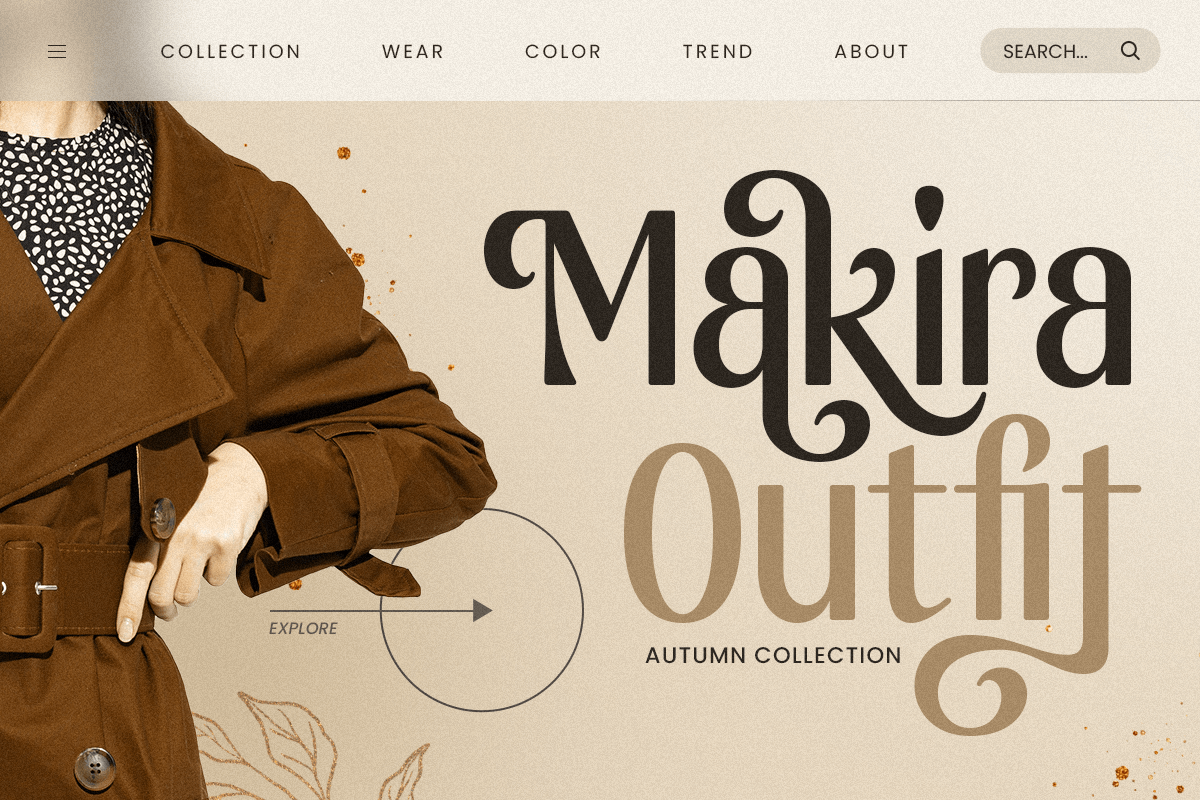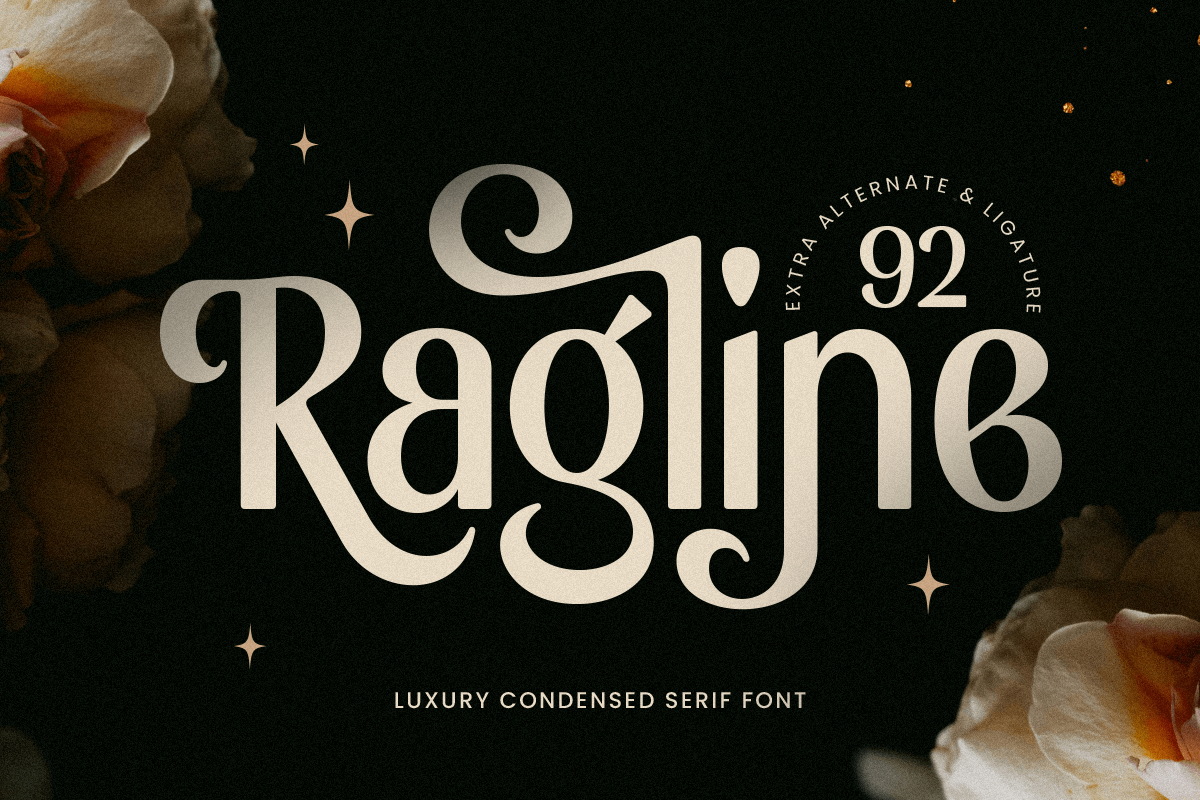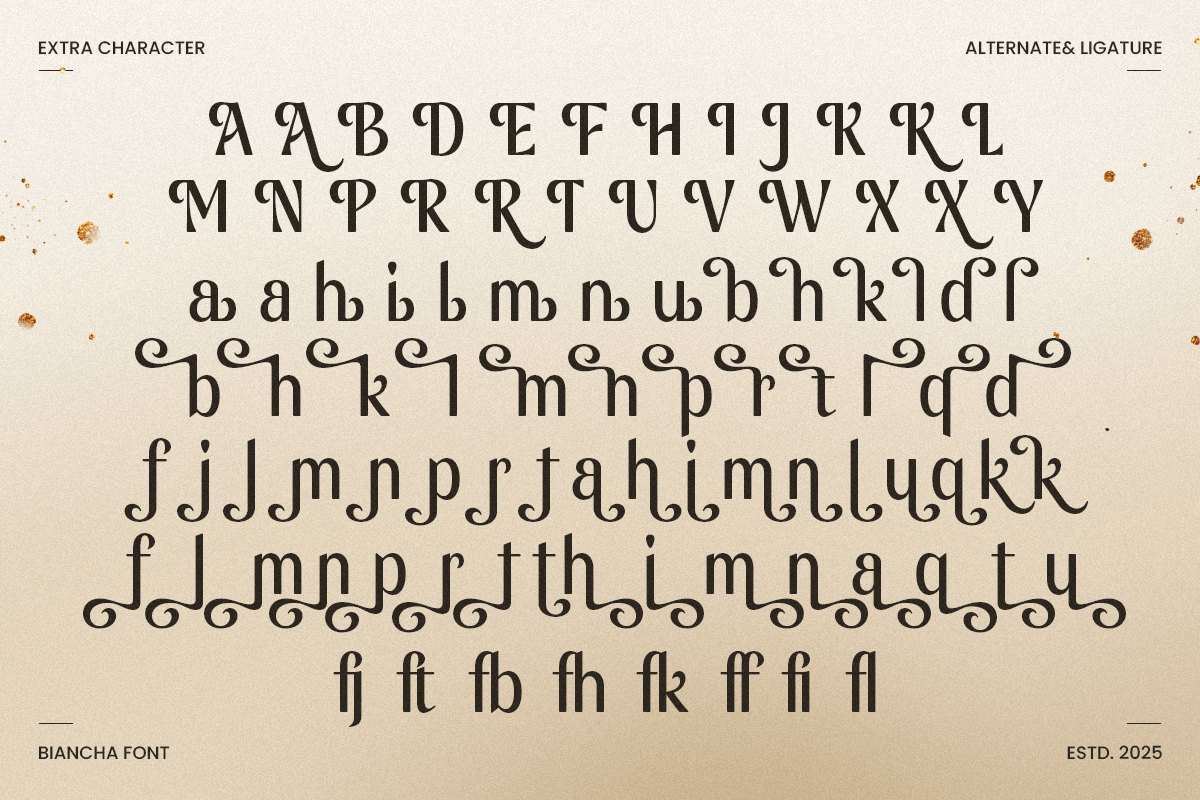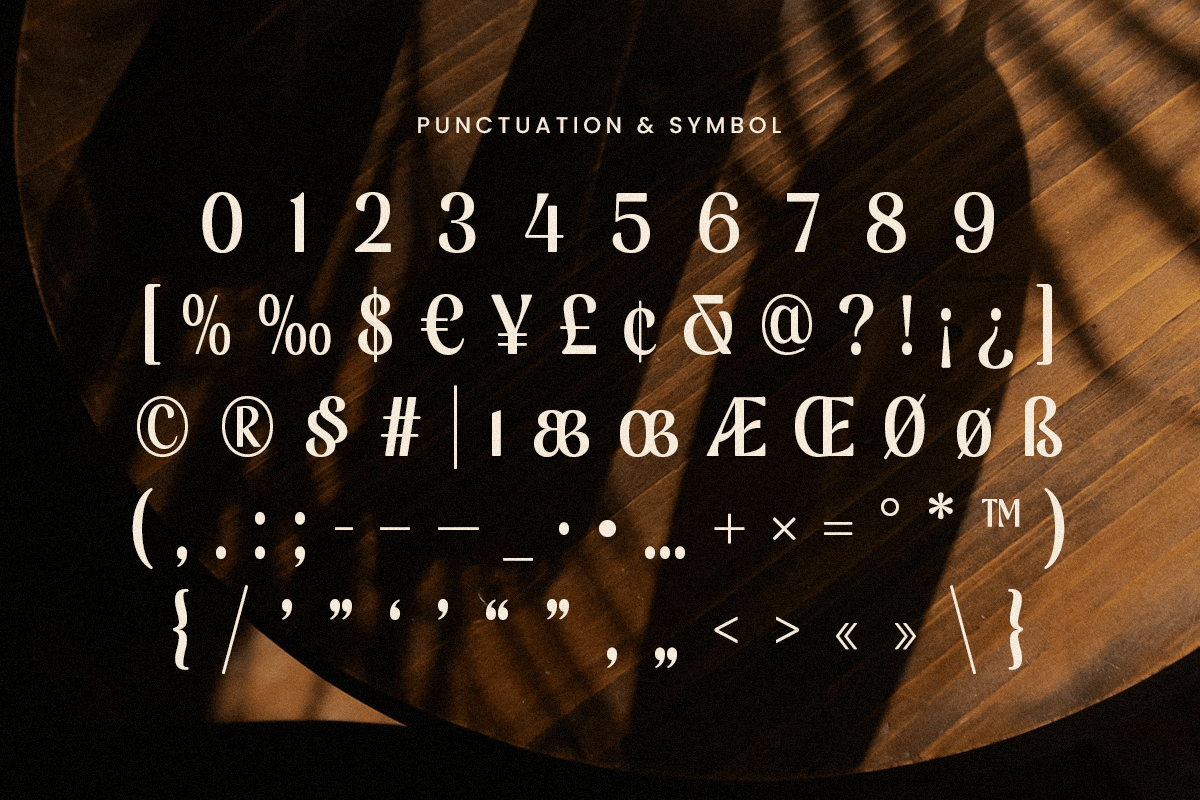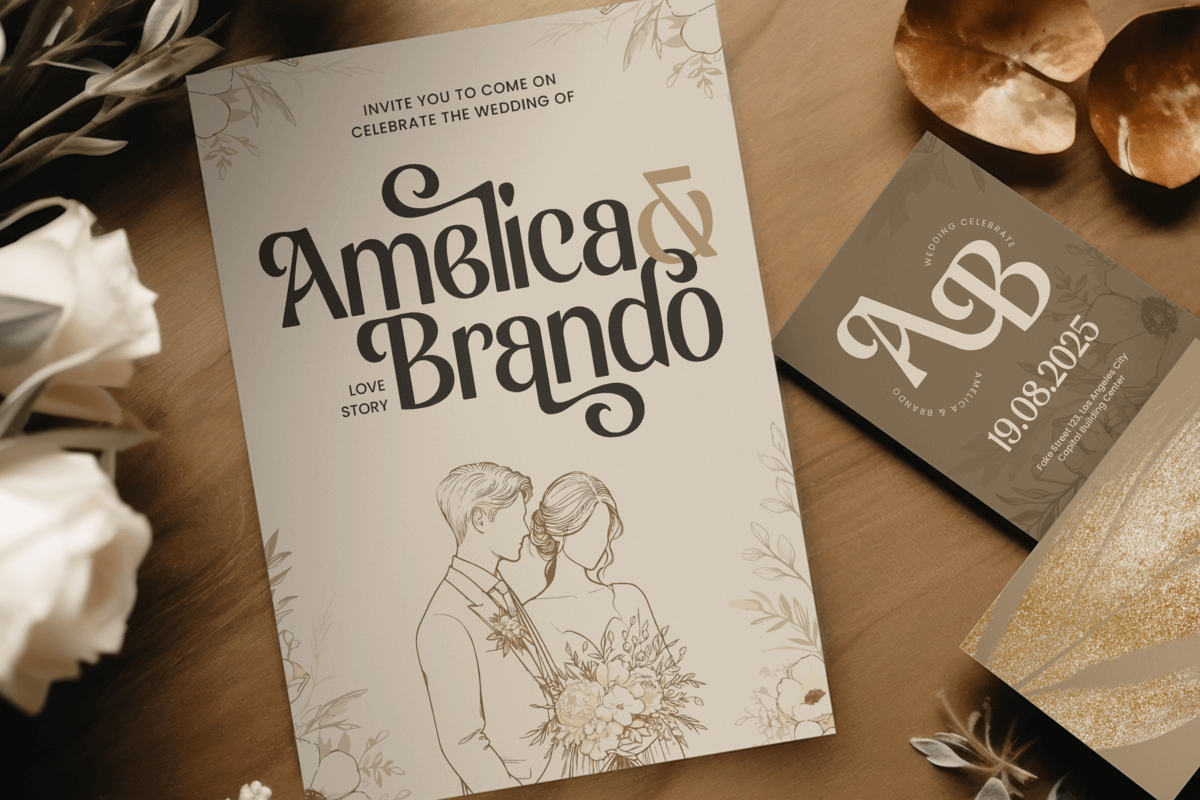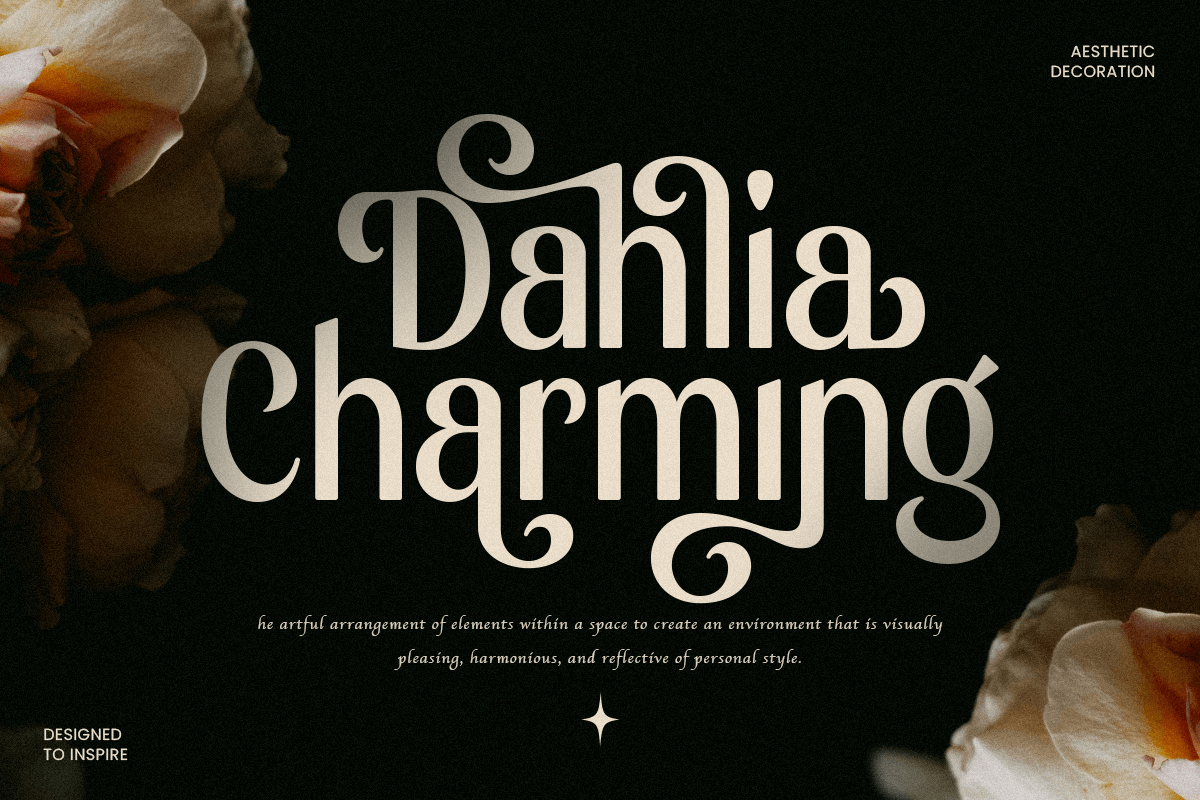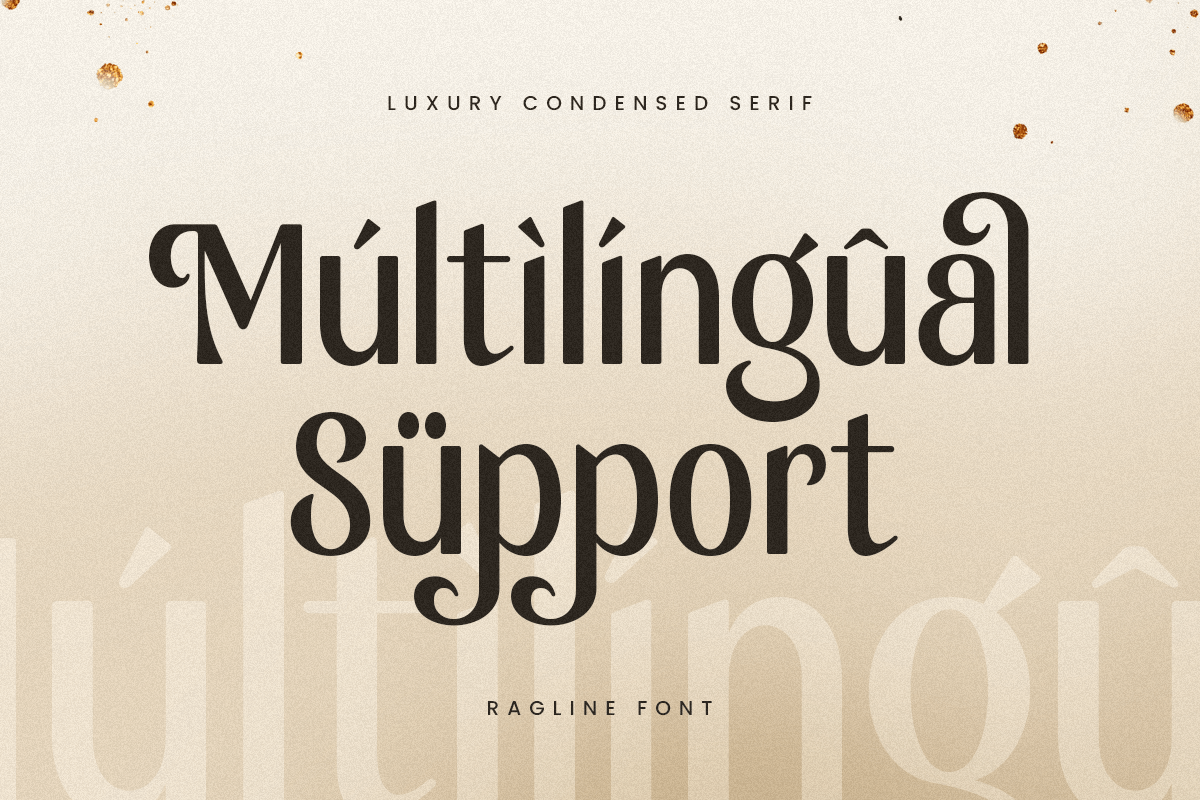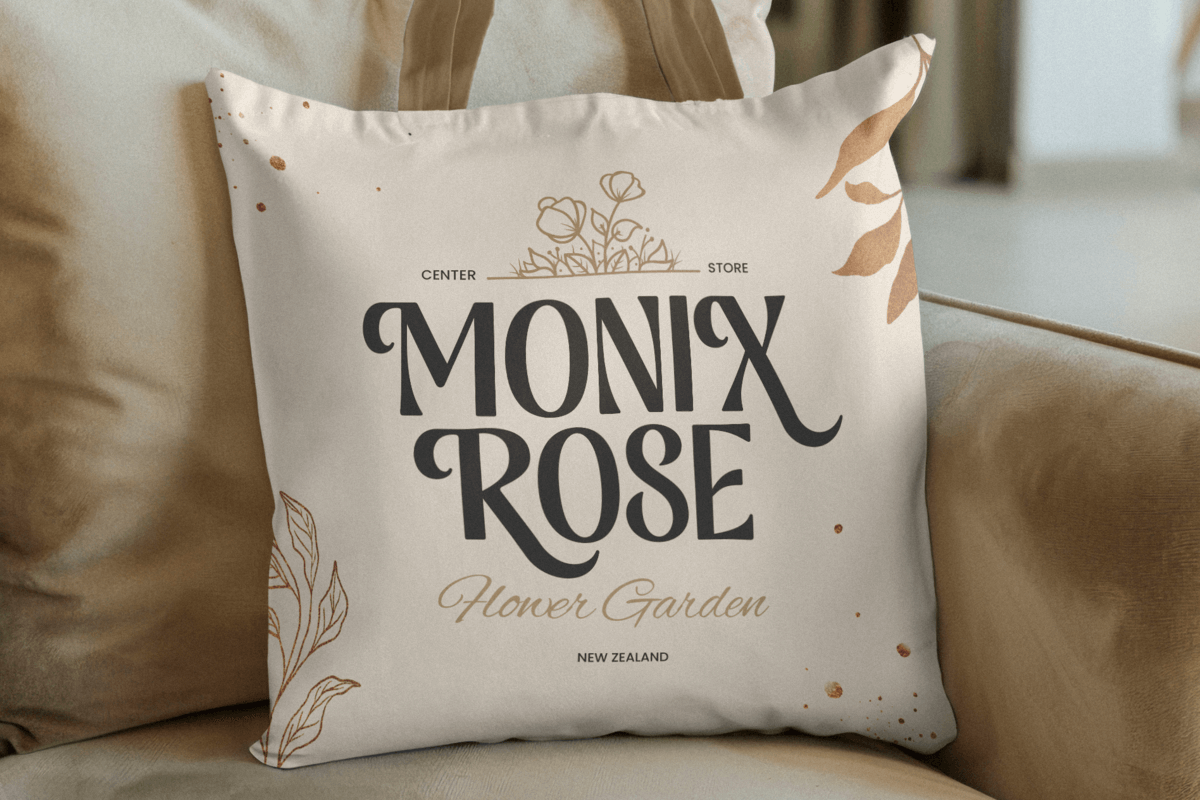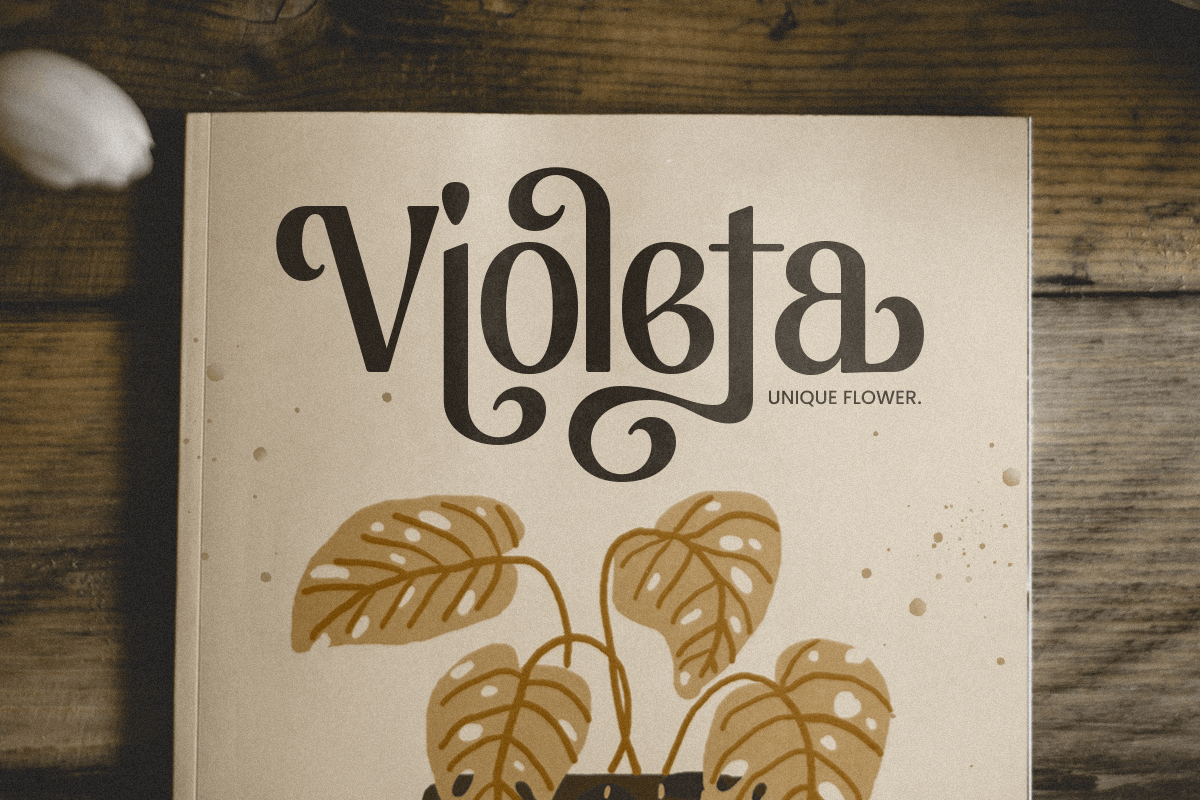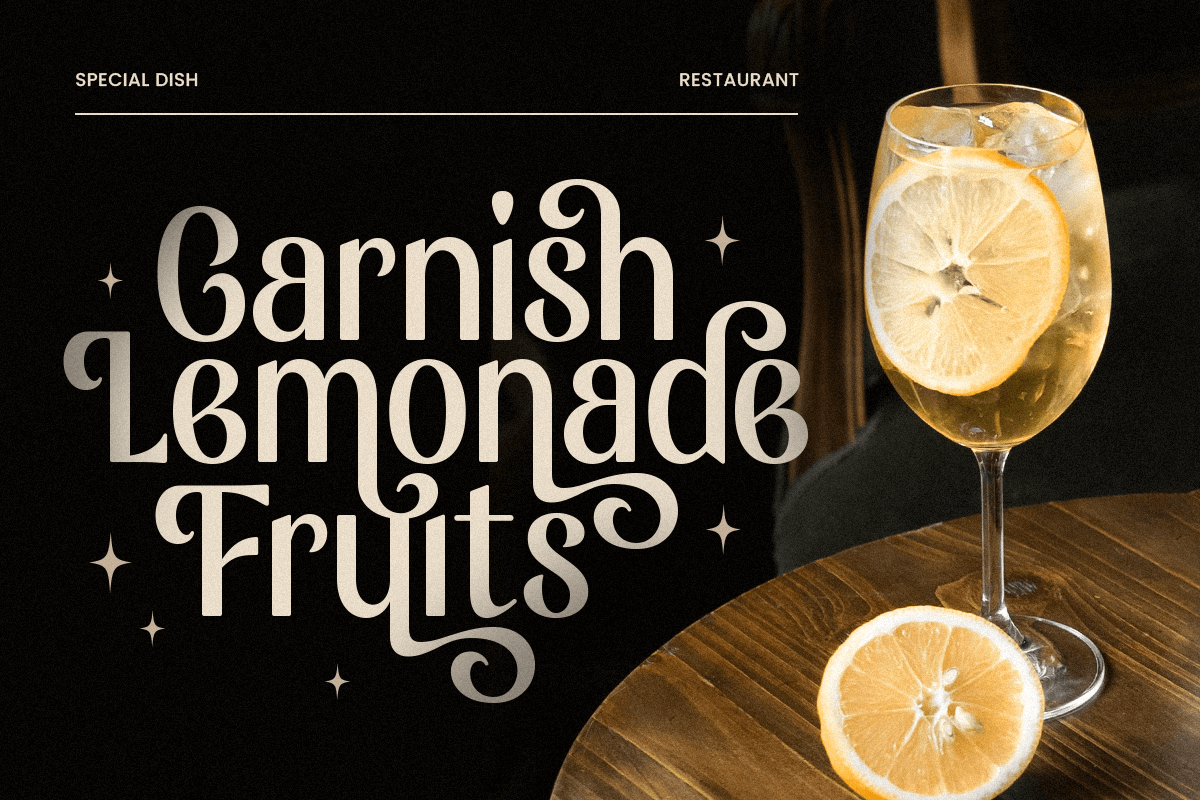
Ragline - Luxury Condensed Font
Ragline is a luxury condensed serif font designed for elegance, sophistication, and modern refinement. With its sleek, narrow proportions and high-end aesthetic, this typeface is perfect for premium branding, fashion editorials, luxury packaging, and upscale invitations.
The combination of sharp serifs and graceful curves makes Ragline ideal for modern logos, magazine headlines, and elegant typography that demands attention. Whether used in minimalist layouts or bold branding, this font exudes a sense of class and exclusivity.
Elevate your designs with Ragline, a typeface that blends luxury and timeless beauty for a truly refined look.
Ragline - Luxury Condensed Serif Font Features:
Elegant and modern condensed serif design
Perfect for high-end branding, fashion, and editorial projects
Punctuation, numbers, and symbols included
Uppercase and lowercase letters
OpenType features with Alternate Characters for added styling versatility
Multilingual support for: Afrikaans, Albanian, Basque, Breton, Catalan, Croatian, Czech, Danish, Dutch, English, Estonian, Finnish, French, Galician, German, Hungarian, Icelandic, Indonesian, Irish, Italian, Latvian, Lithuanian, Luxembourgish, Maltese, Norwegian, Polish, Portuguese, Romanian, Slovak, Slovenian, Spanish, Swedish, Turkish, Welsh, and more.
Experience modern elegance and luxury with Ragline—a font that defines class and sophistication.